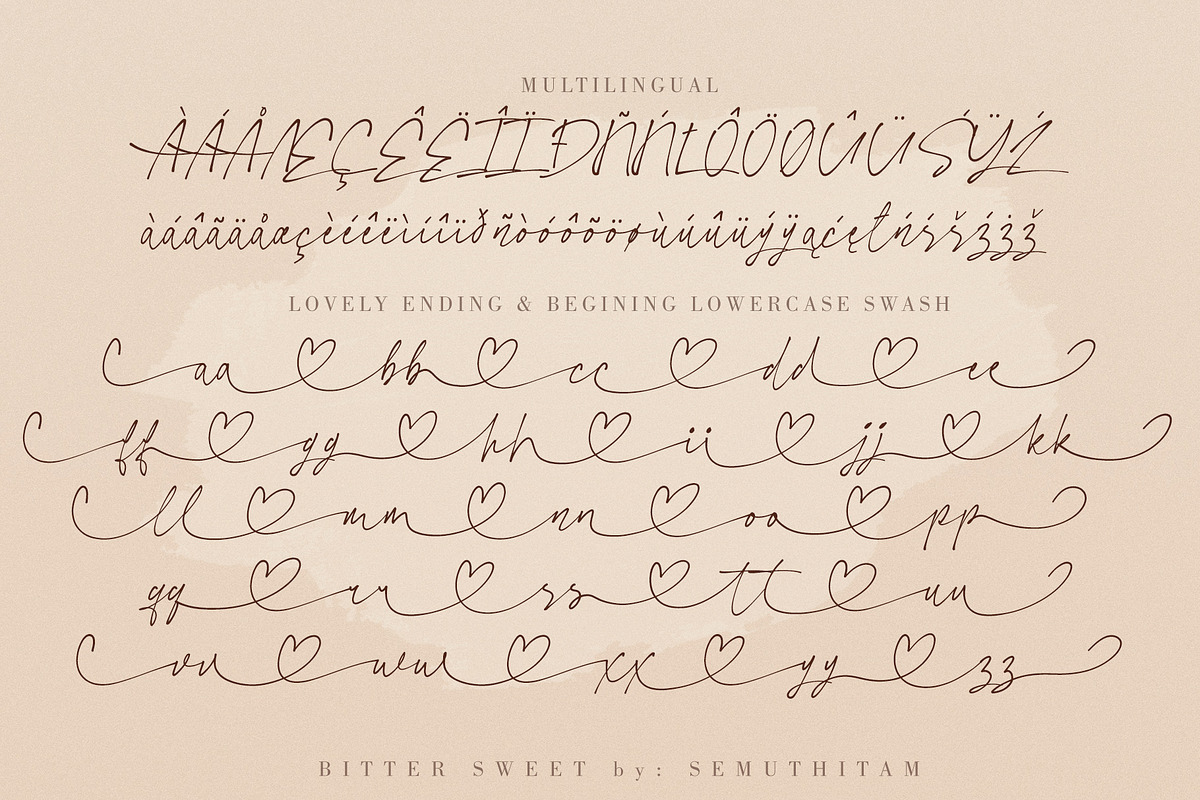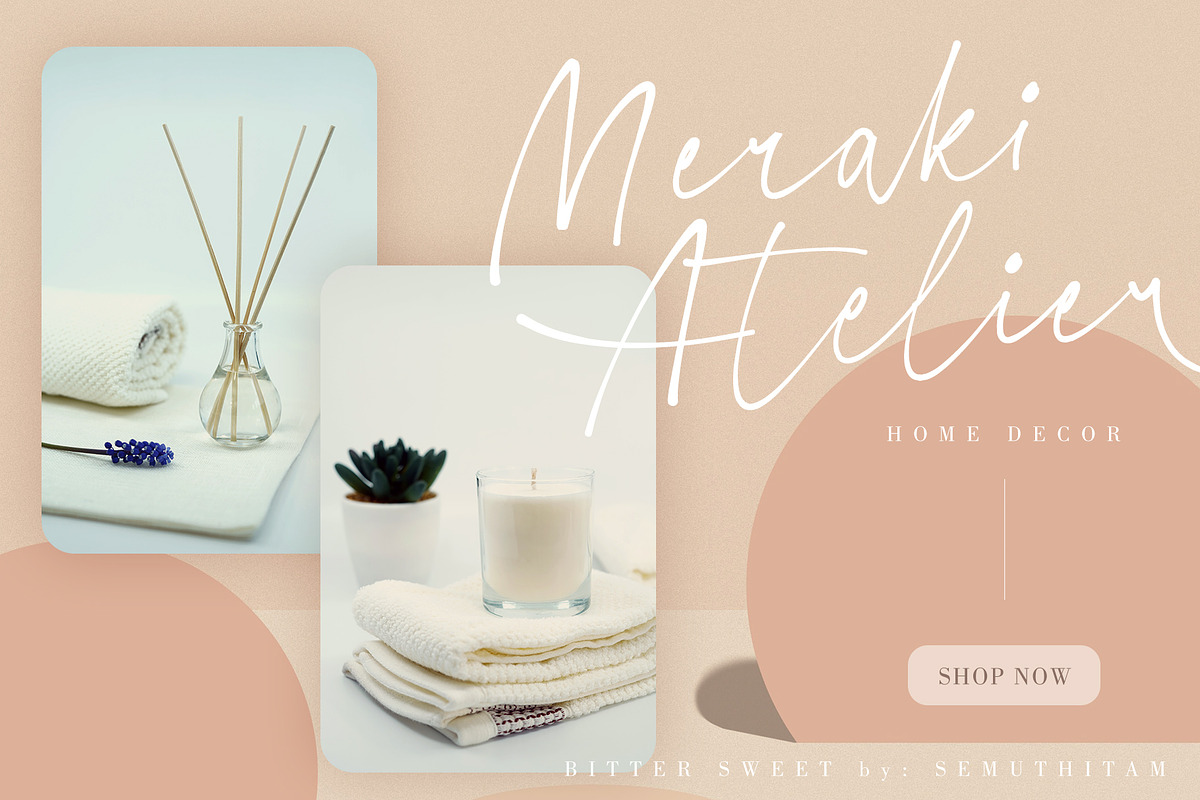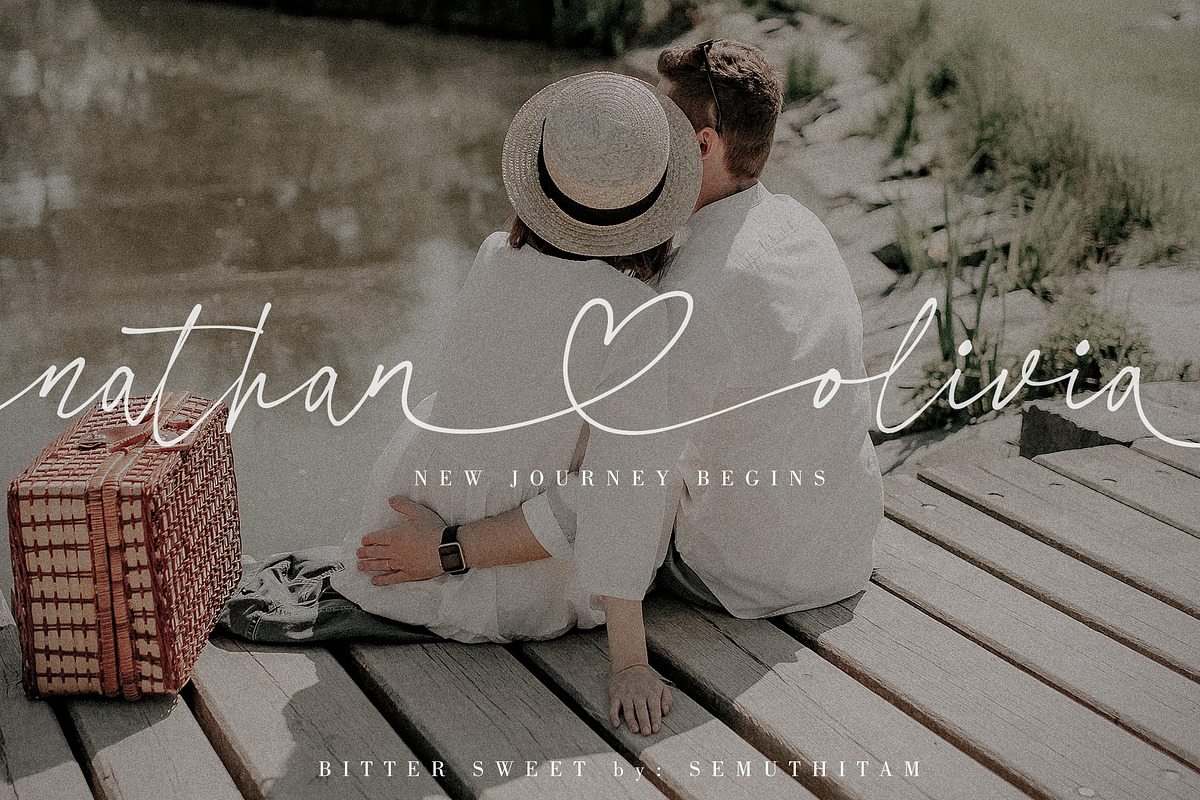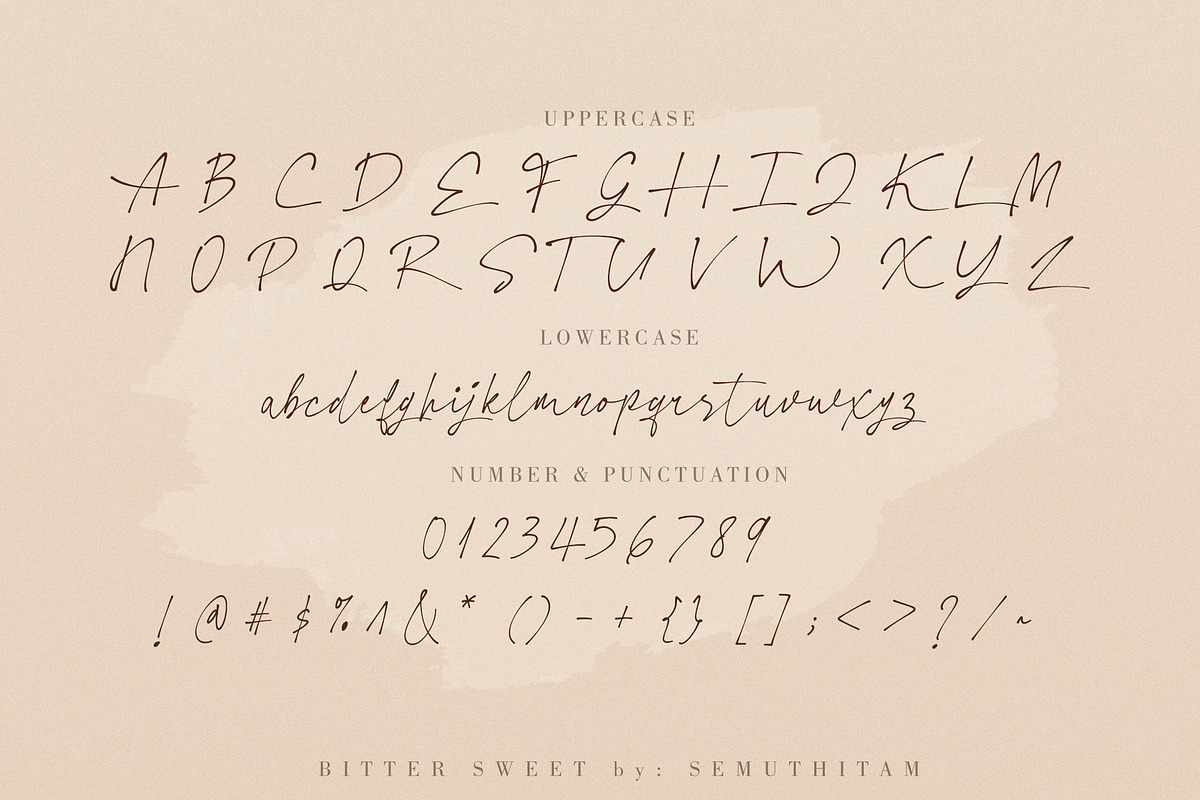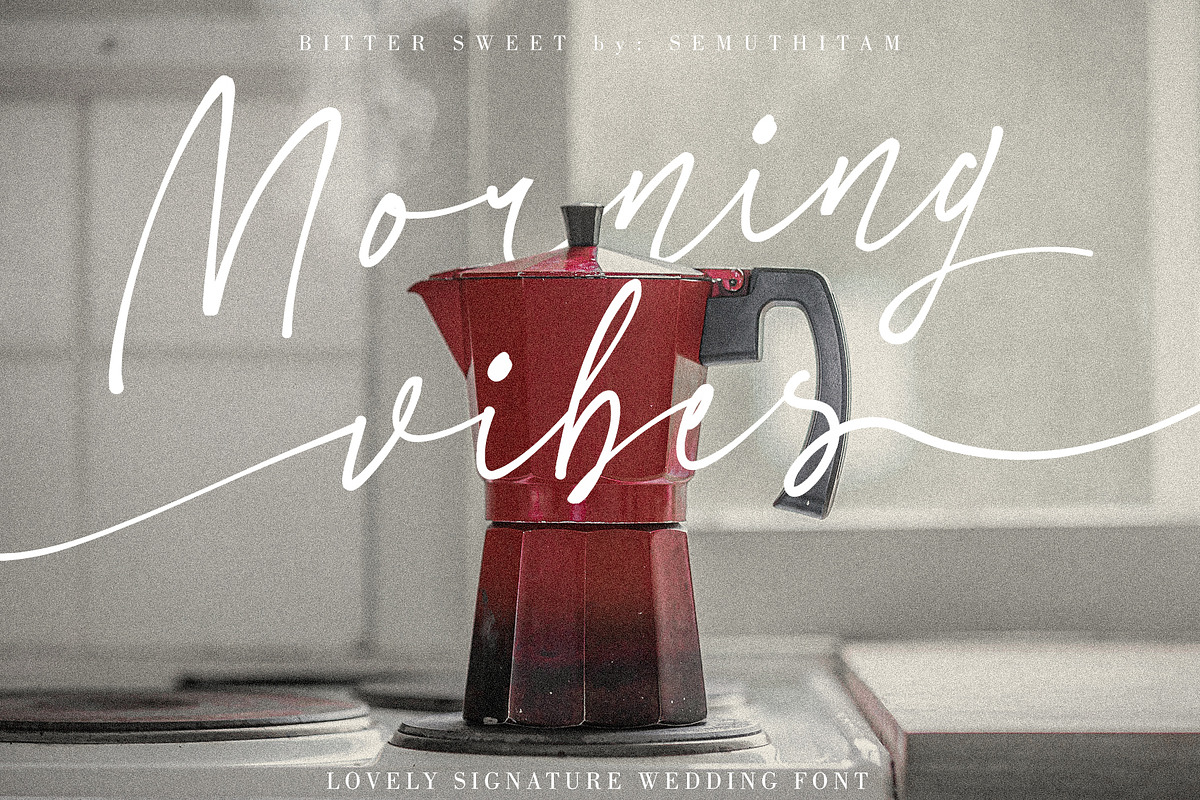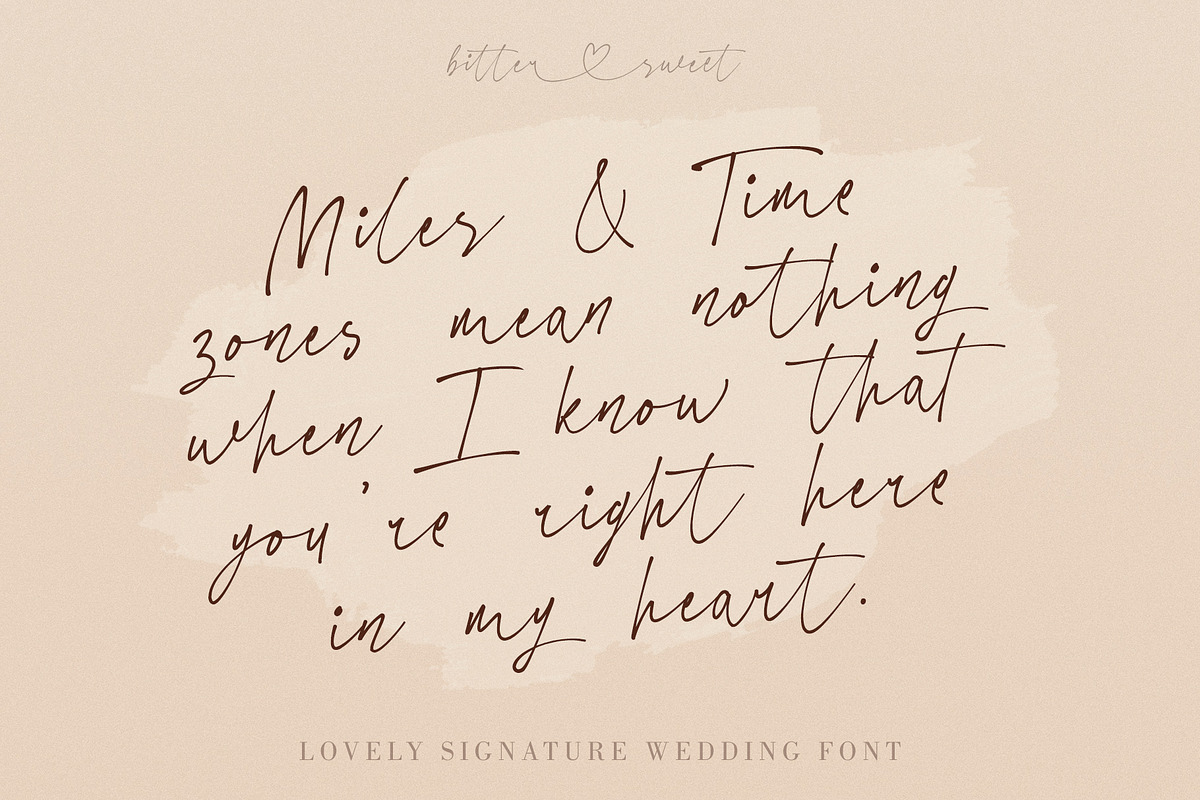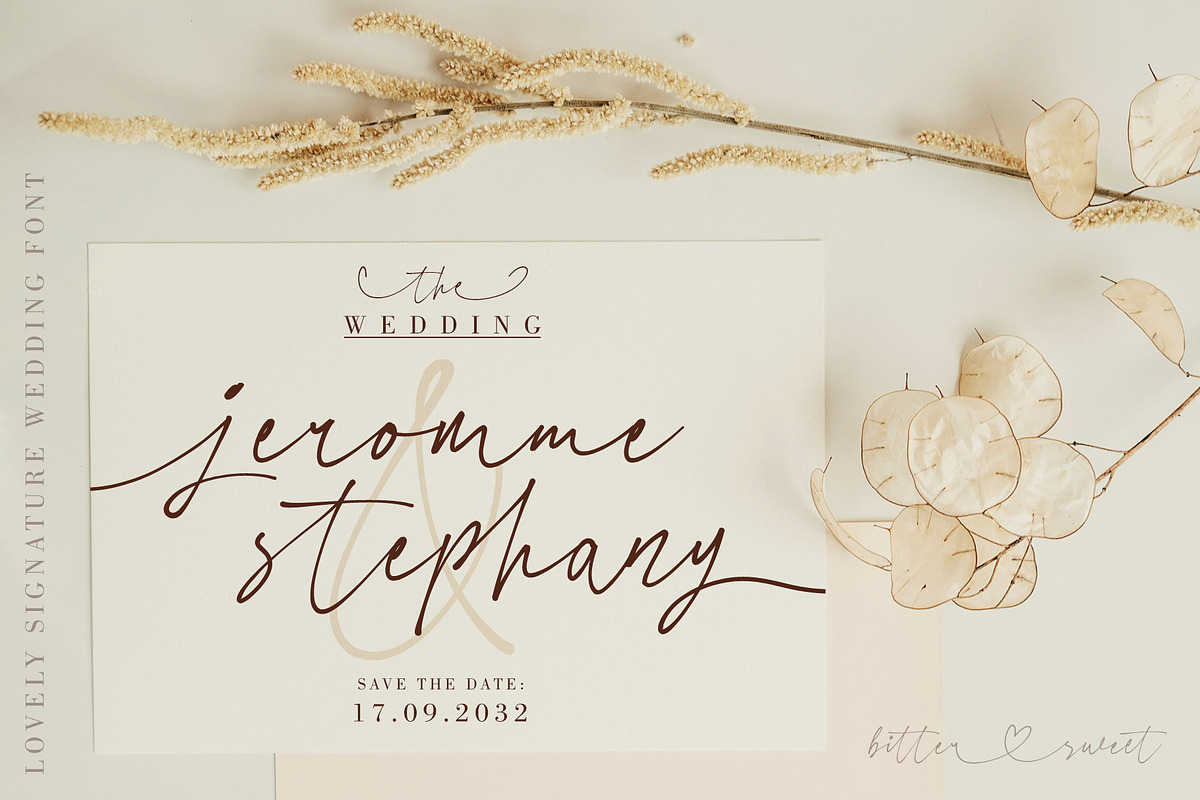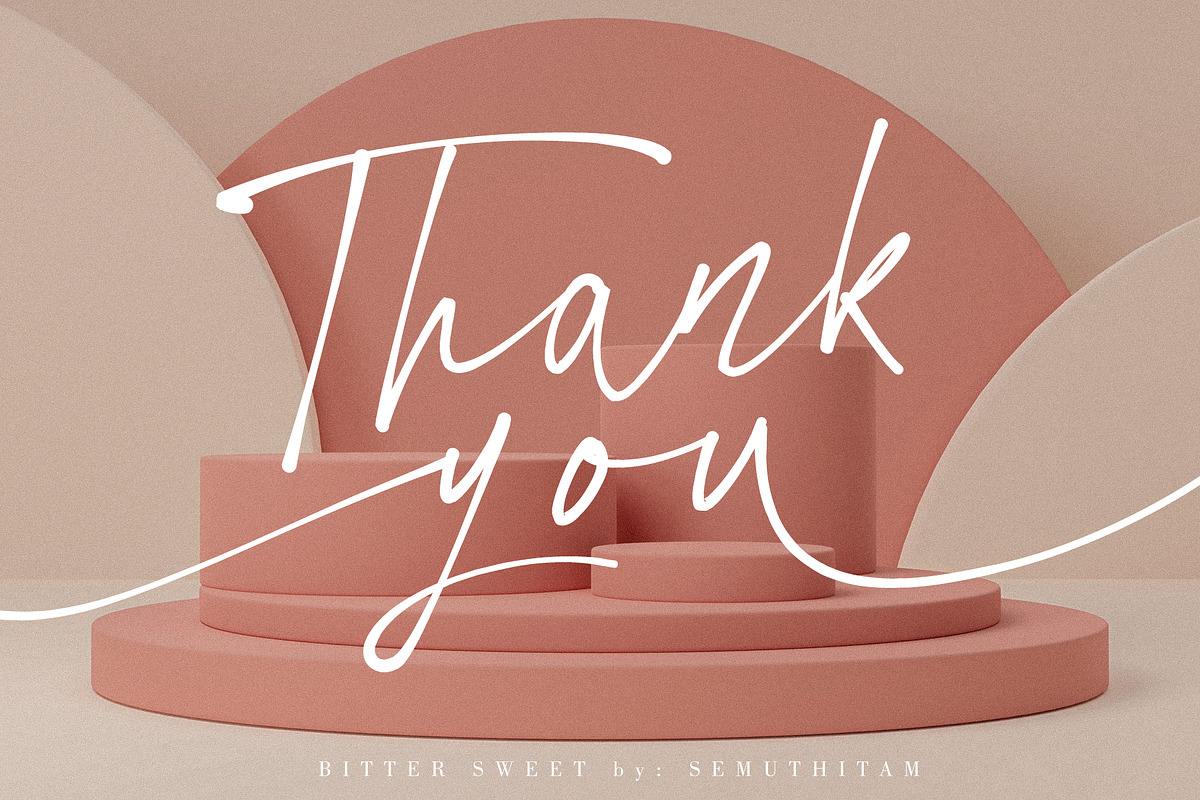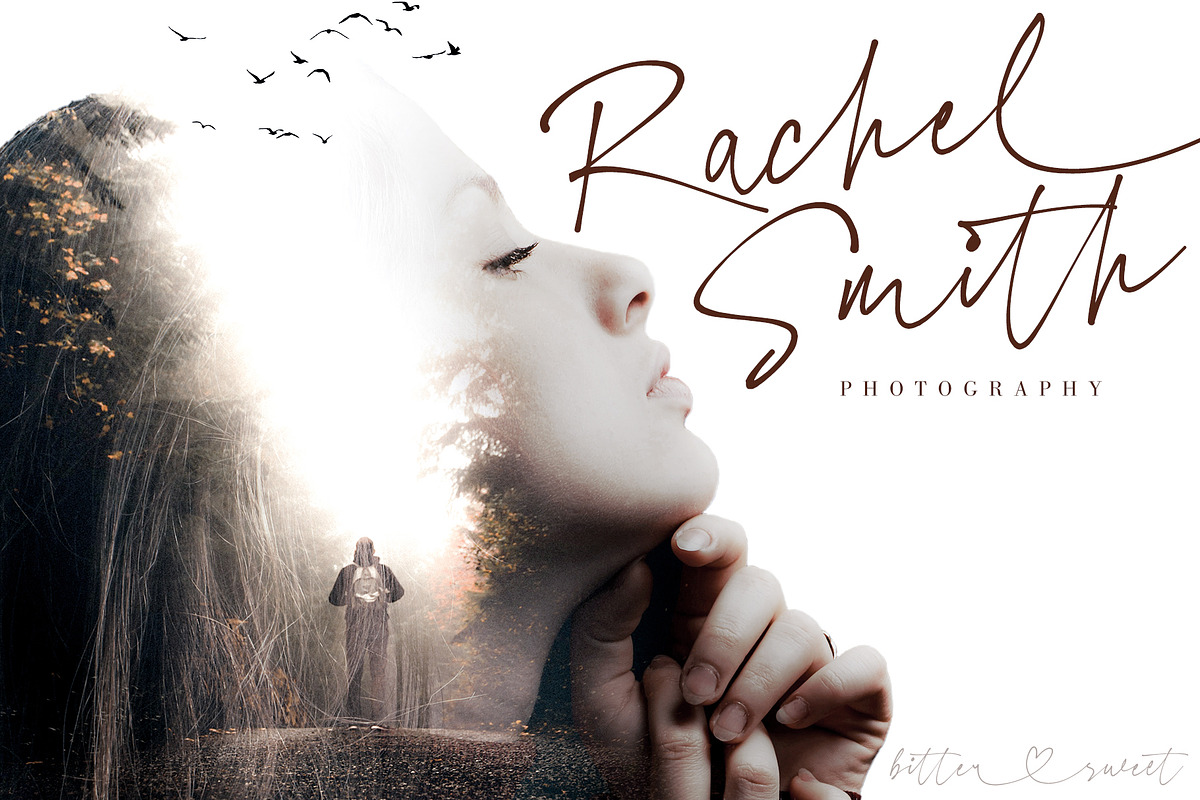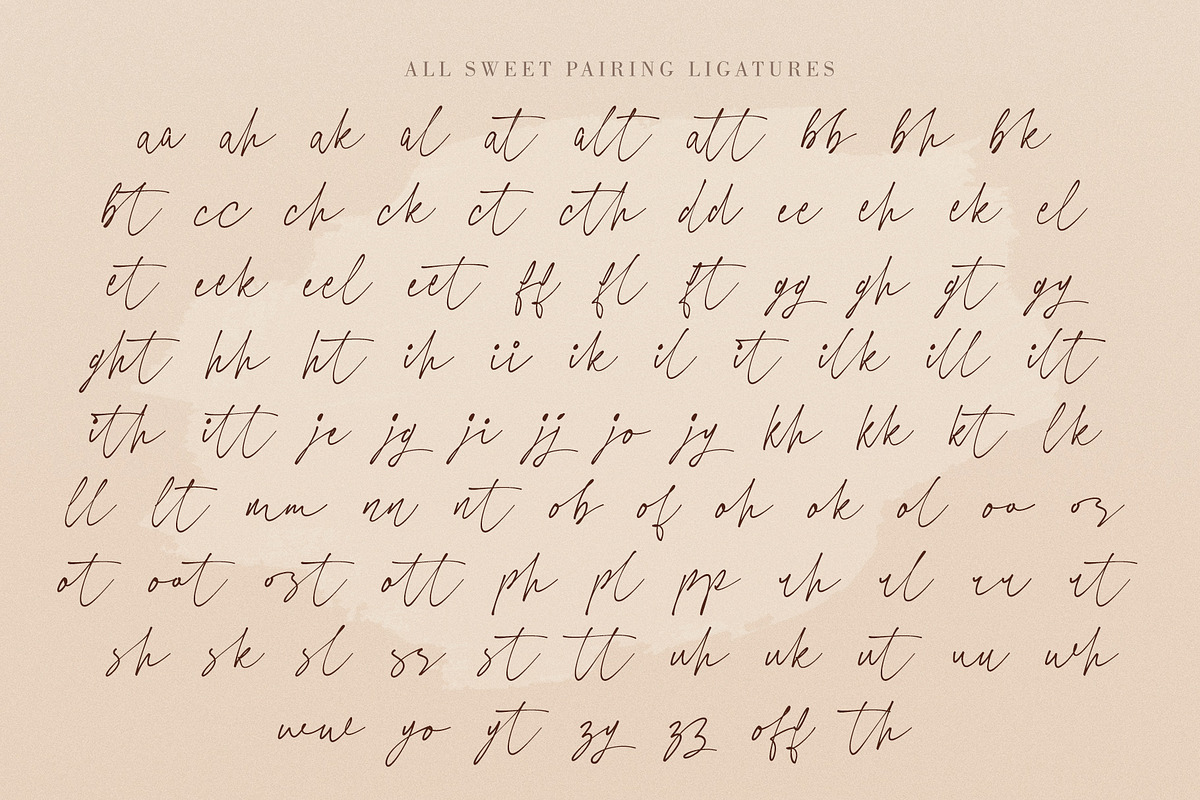
Bitter Sweet - Signature
You deserve something special in the moment you want, just like Bitter Sweet - Signature Font. We make it with love and meticulousness. Bitter Sweet is lovely signature wedding font, Very suitable for: branding needs, wedding invitations, business cards, and for other print needs...
Bitter Sweet Includes full set of elegant uppercase, lowercase letters, numbers, punctuation, multilingual language, and +96 ligatures in total. You don't have to struggle to use software that supports OpenType features, calm down! We make it easy to use the heart symbol that connects as beginning & ending swash with use 2x click spaces in beginning & ending lowercase.